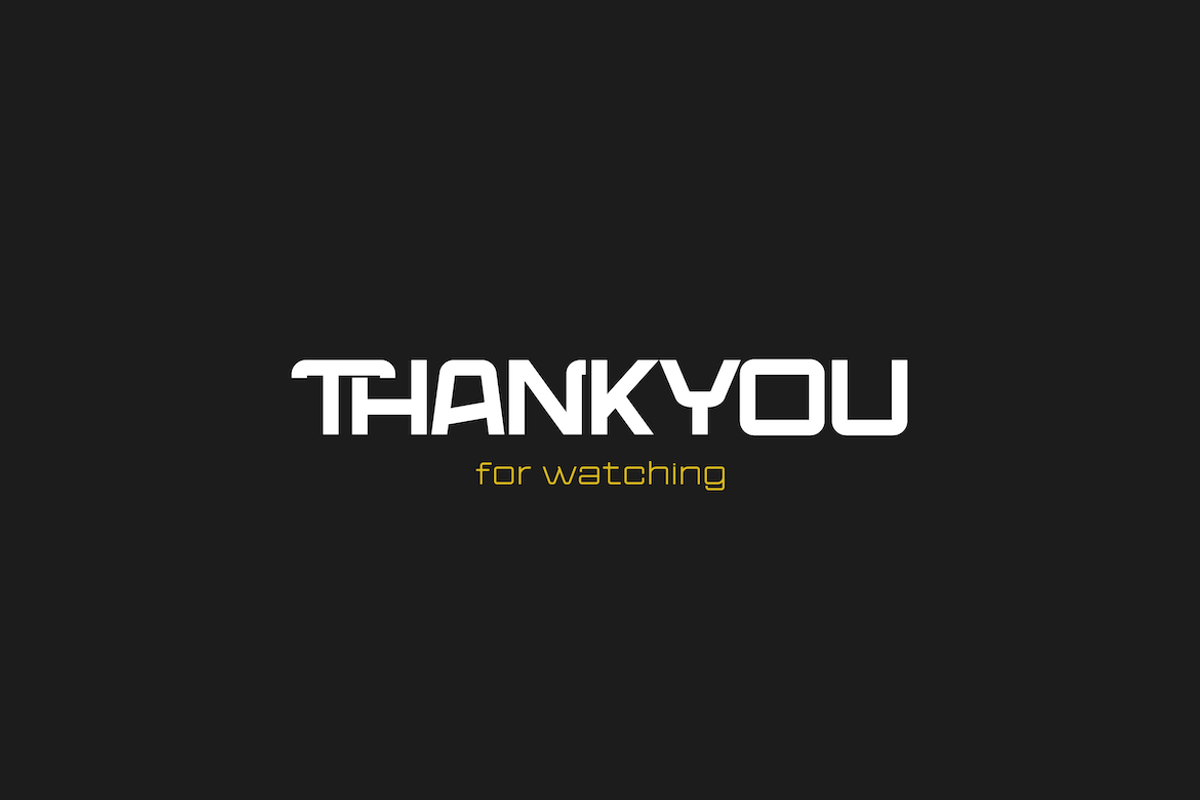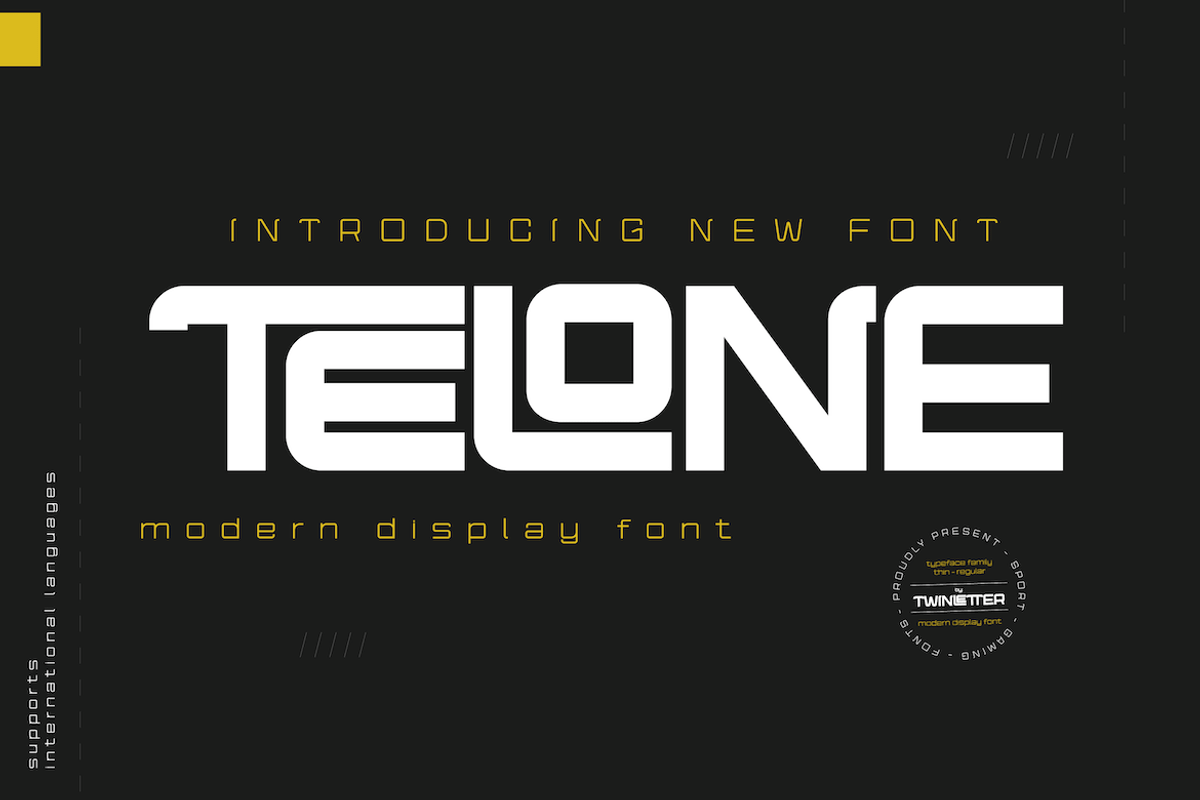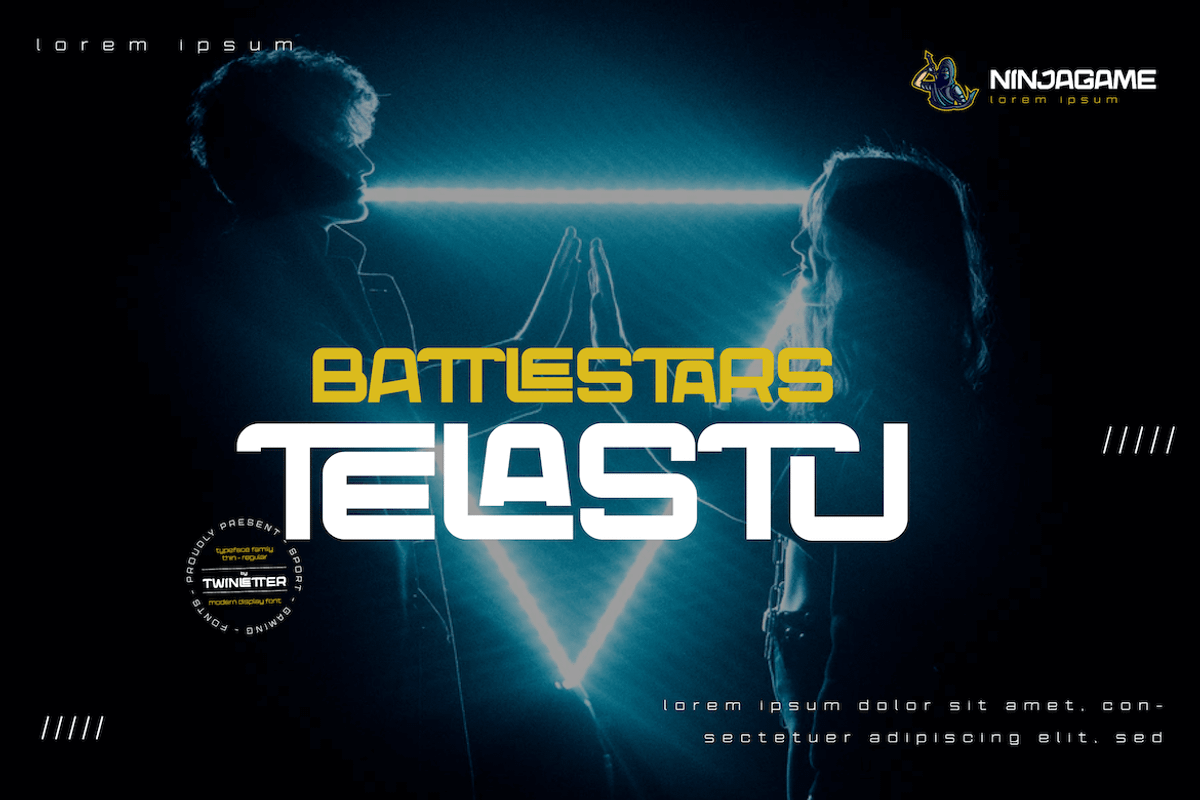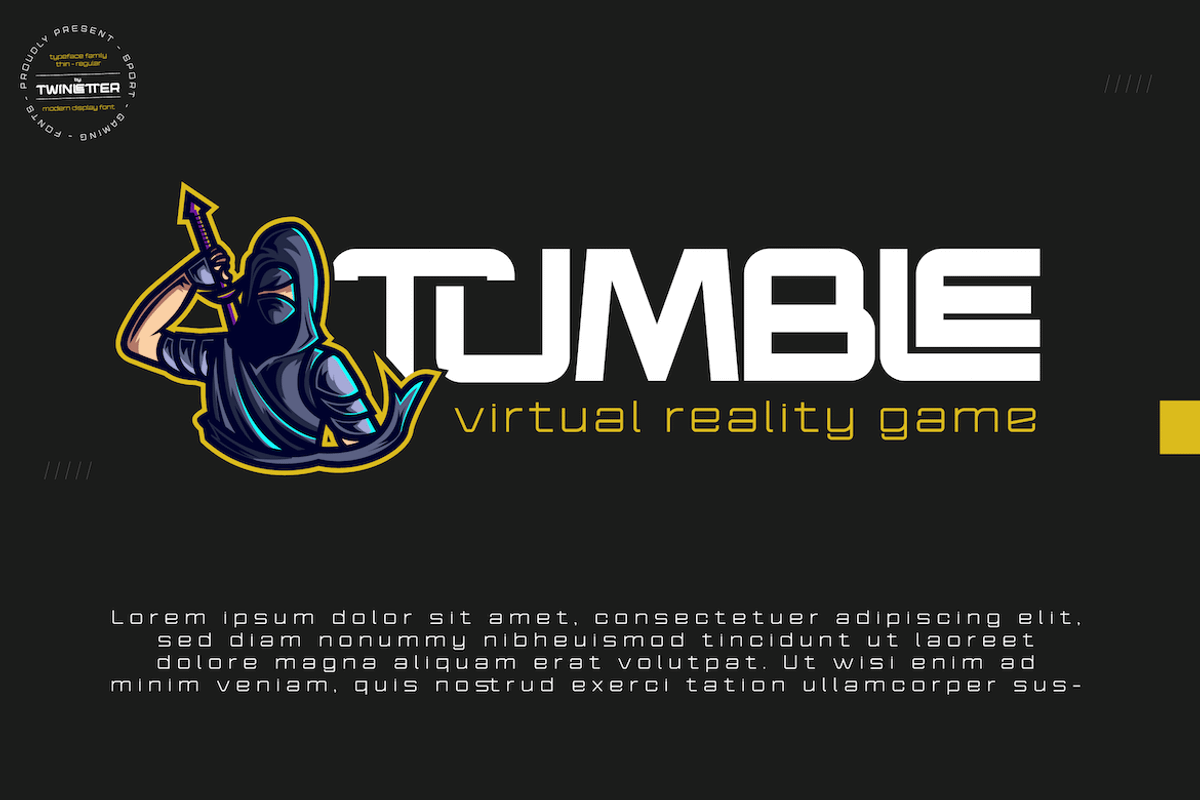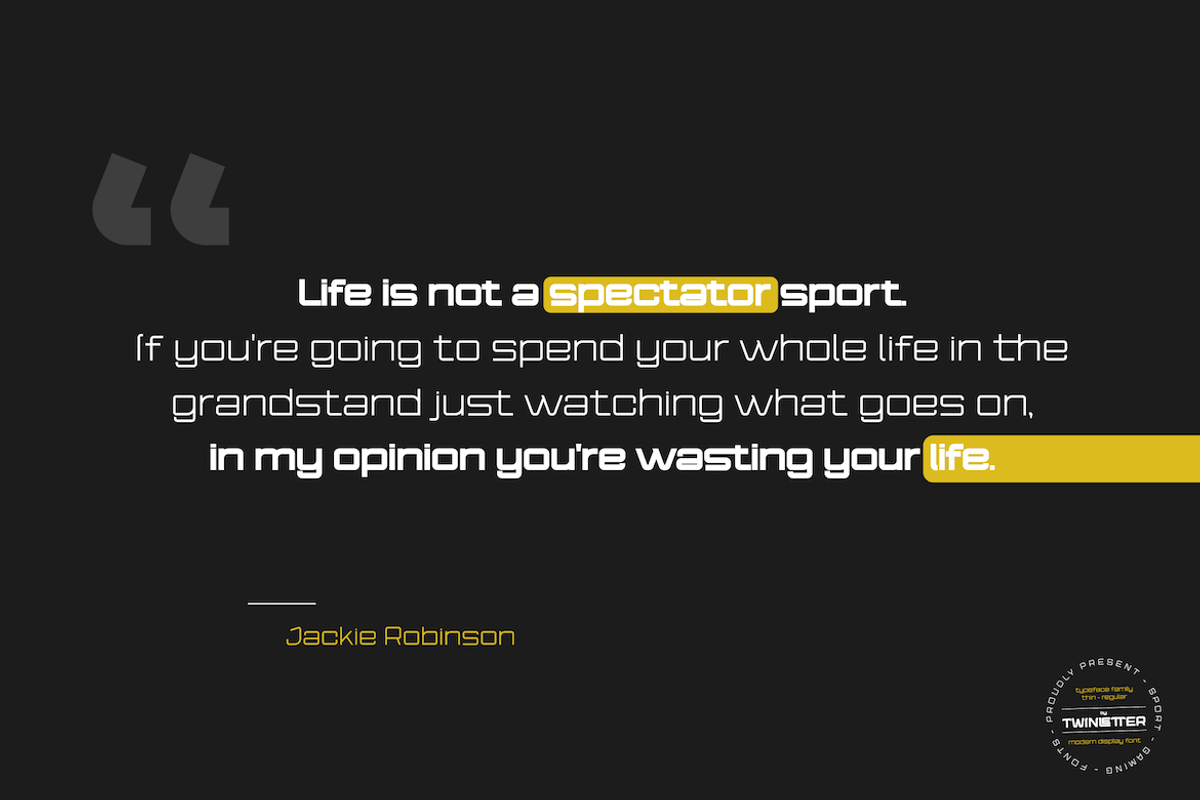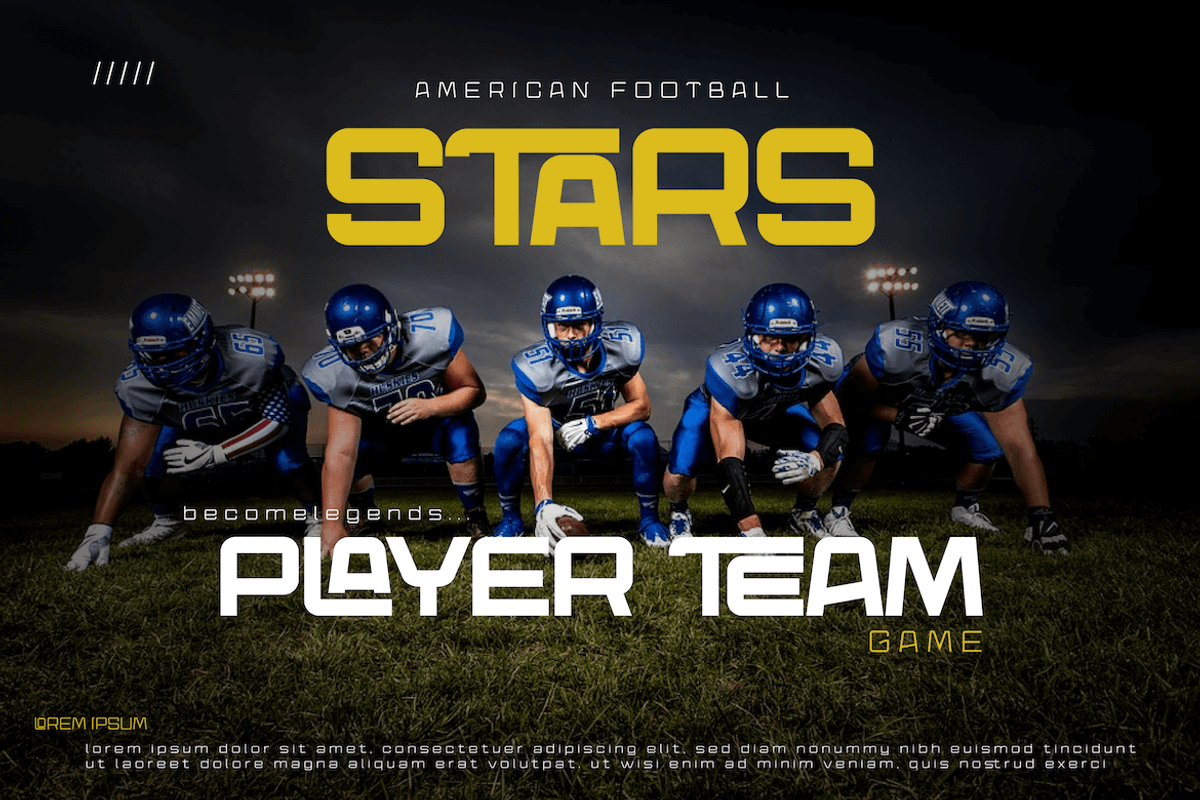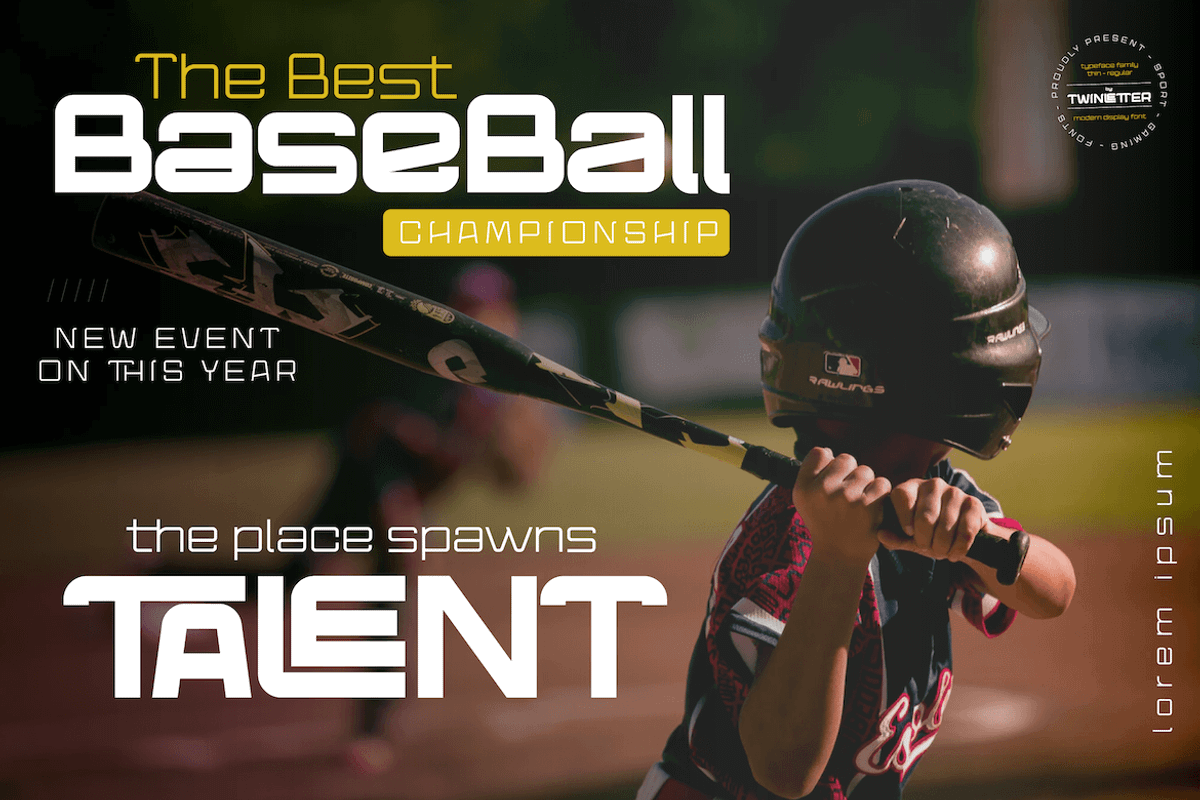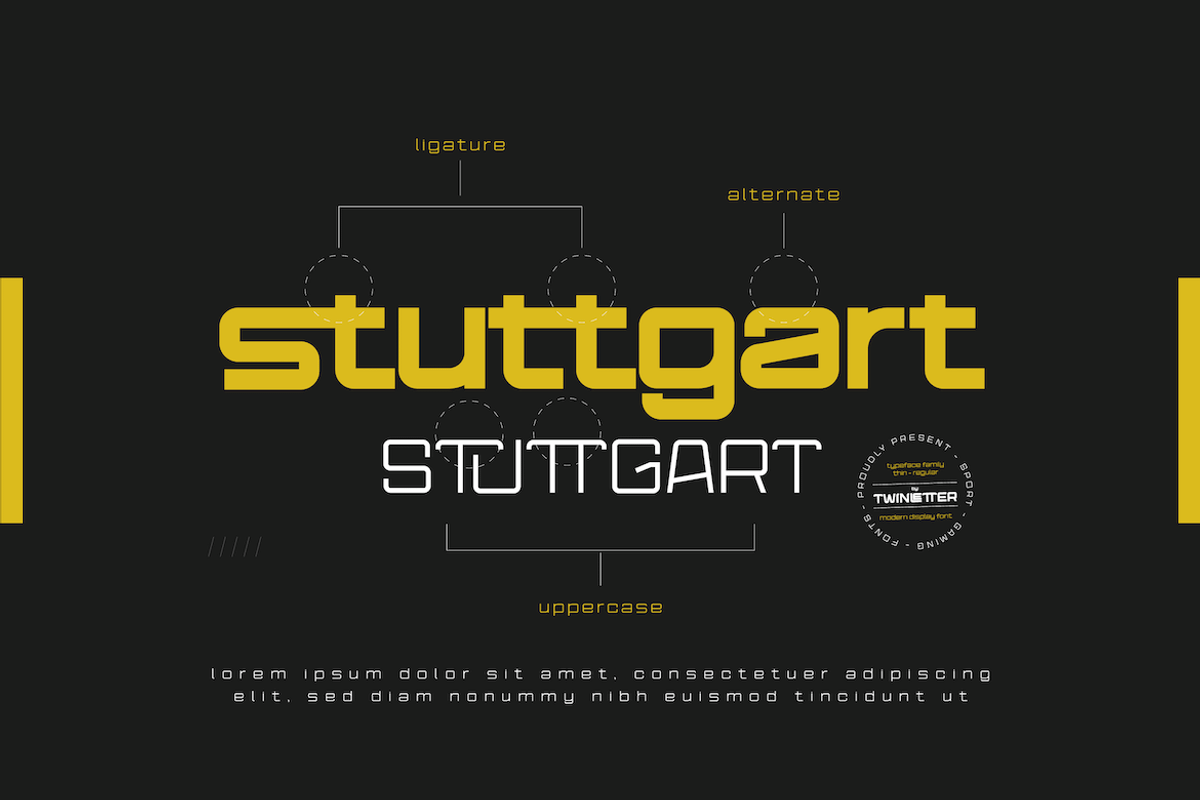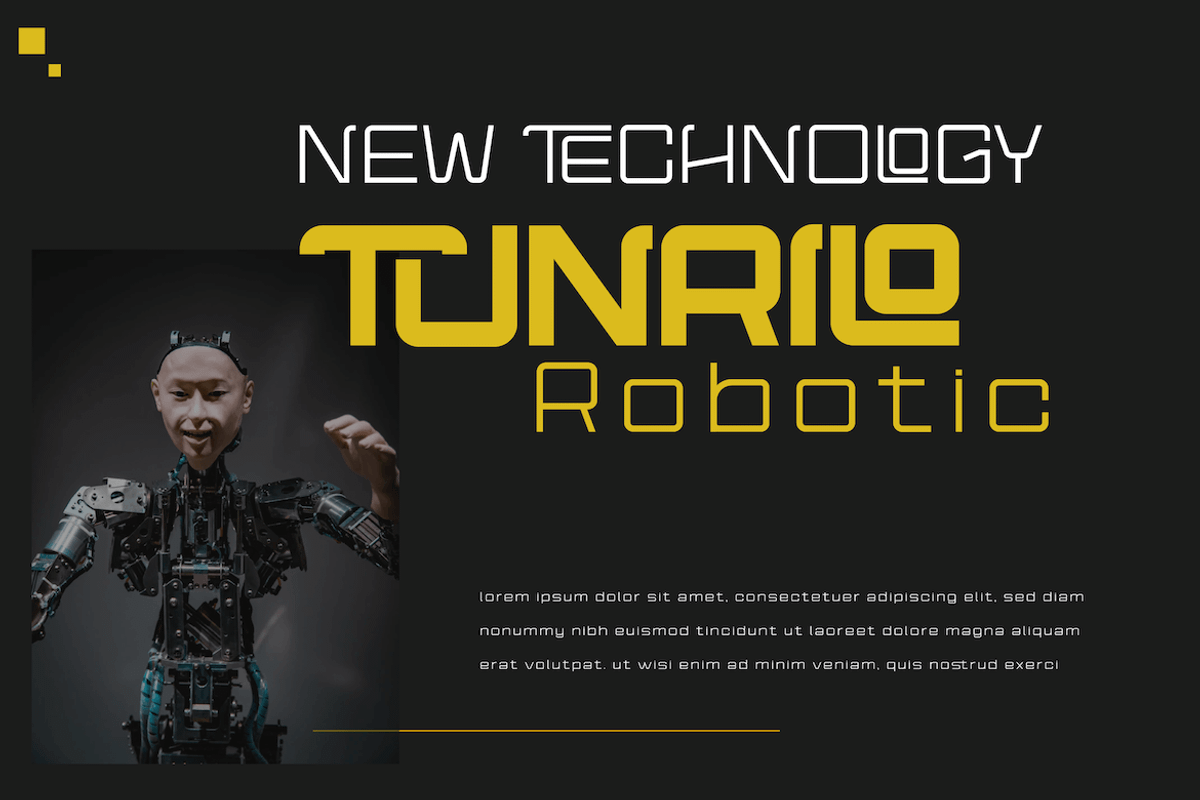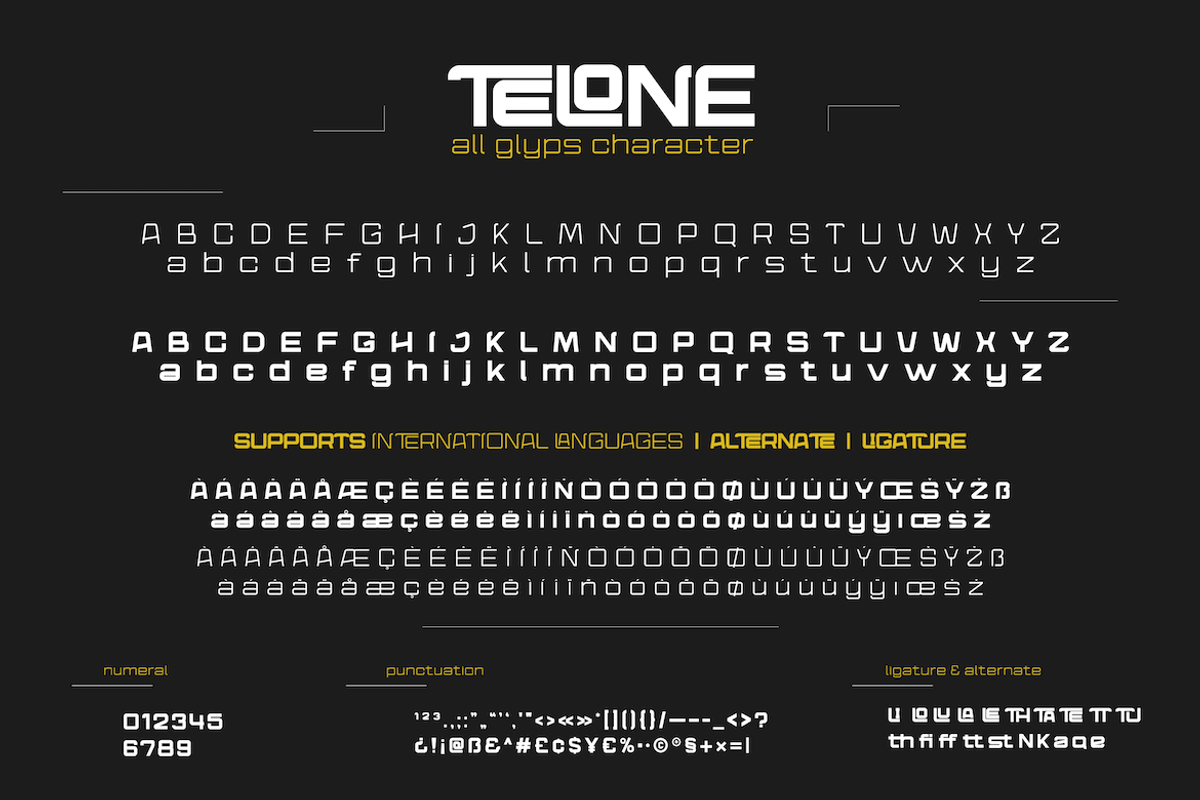
Telone
Introducing Telone font, is a san serif font that has a characteristic character that is relaxed, nice and comfortable to read, has a serious and relaxed background, making this font very flexible to answer your various needs in creative and other fields. This font brings out an exotic and fantastic impression in its application in various media designs for you.
This font is perfect for games, sporting events, branding, banners, posters, movie titles, book titles, quotes, clothing, logotypes, and more.